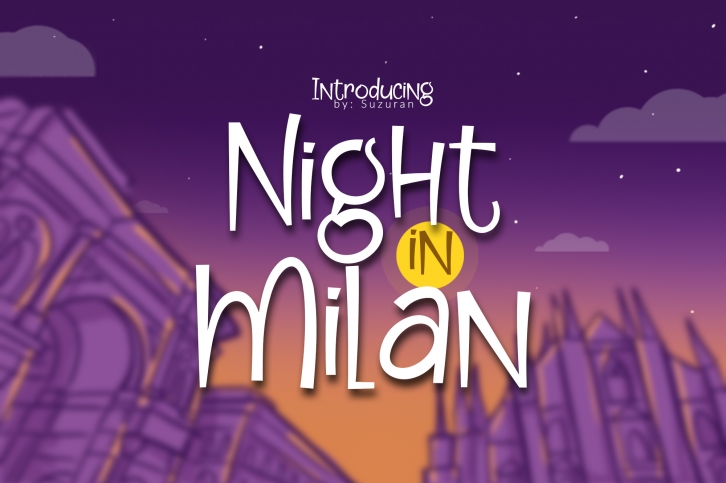
Night in Milan is a trendy and unique font with an authentic style. It was designed by Suzuran and it's a great choice for creative people who need such a font. It was released on October 13, 2018 and the file size is 12.25 MB. Night in Milan will add an organic vibe to any design idea!